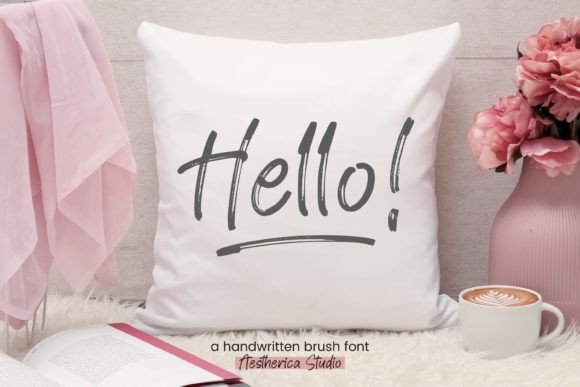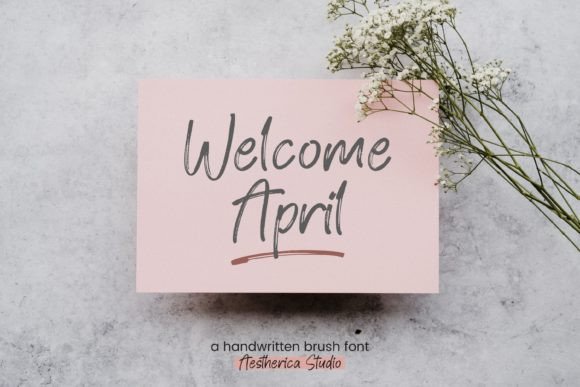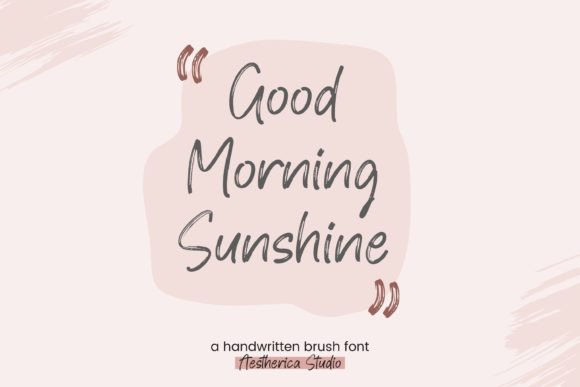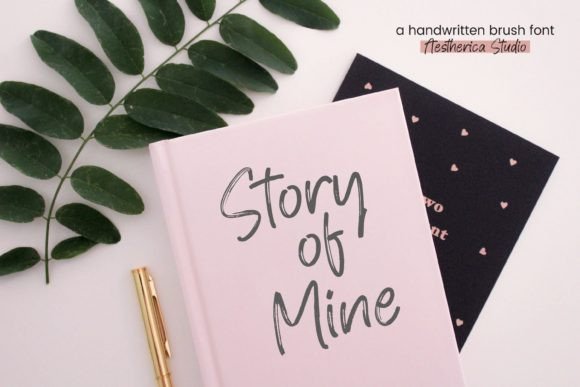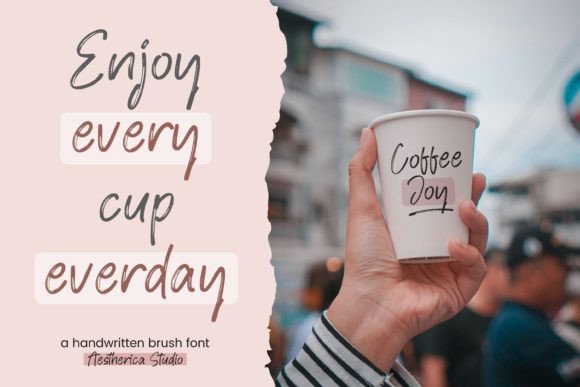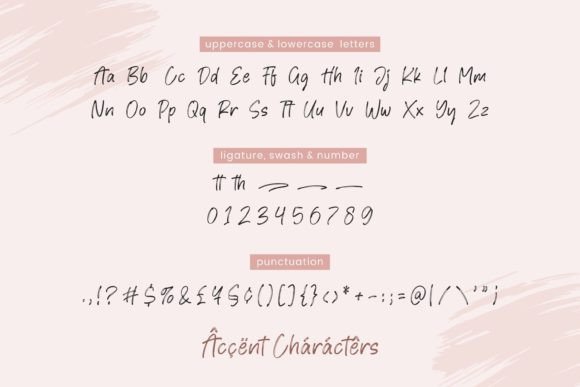
Introduction to Hugins Font
As designers, we’ve all been there – staring at a blank canvas, trying to bring a creative project to life. The blank page can be daunting, but it’s moments like these that we’re reminded of the power of a great font. Imagine a handwritten brush font that exudes charm and personality, elevating your designs to the next level. Enter Hugins Font, a game-changing design resource that’s about to become your new go-to.
With its unique quick dry strokes and signature style, Hugins Font is the perfect addition to any creative project. Whether you’re working on branding projects, homeware designs, or product packaging, this high-quality font is sure to make your designs stand out. Plus, with a transparent background, you can easily overlay text onto any background image, giving you endless design possibilities.
Key Features of Hugins Font
- Unique and versatile font style with a transparent background, ideal for use in various design applications.
- Perfect for use in digital design, graphic design, and print design projects, thanks to its high-resolution and clear typography.
- Comes with a comprehensive character set, including uppercase and lowercase letters, numbers, and special characters.
Honest Review: Hugins Font
I recently came across the Hugins Font, and I must say it’s been a game-changer for my design projects. As a designer, I’m always on the lookout for high-quality fonts that can elevate my creative work. The Hugins Font is definitely one of those hidden gems.
Here are some things that work well: ✨
- High-quality design: The font is clean, modern, and perfectly suited for a wide range of creative projects.
However, there are some limitations: ⚠️
- Limited font styles: While the font itself is excellent, there are limited styles to choose from, which may limit its versatility.
- Not suitable for body text: Due to its unique design, it’s not the best font for body text, but it’s perfect for headings and titles.
Overall, I’m thoroughly impressed with the Hugins Font. Its high-quality design, free download, and transparent background make it an excellent design resource for creative projects. While it has its limitations, I believe it’s a great addition to any designer’s toolkit.
Hugins Font is ideal for creative projects such as logos, typography-based designs, and branding materials. Tips for getting the most out of Hugins Font include experimenting with different font sizes, colors, and combinations to create visually appealing designs.